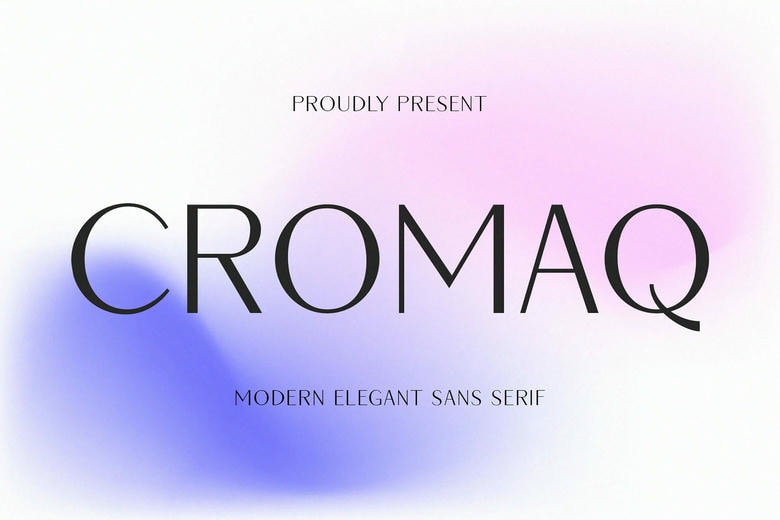
Cromaq Font
CROMAQ is a luxurious and contemporary sans serif font with a refined personality. Its thin lines, stylish curves, and minimal forms make it a perfect choice for fashion, beauty, and high-end branding projects. Sophisticated and modern, it adds elegance to any design.
Cromaq Sans Serif Font